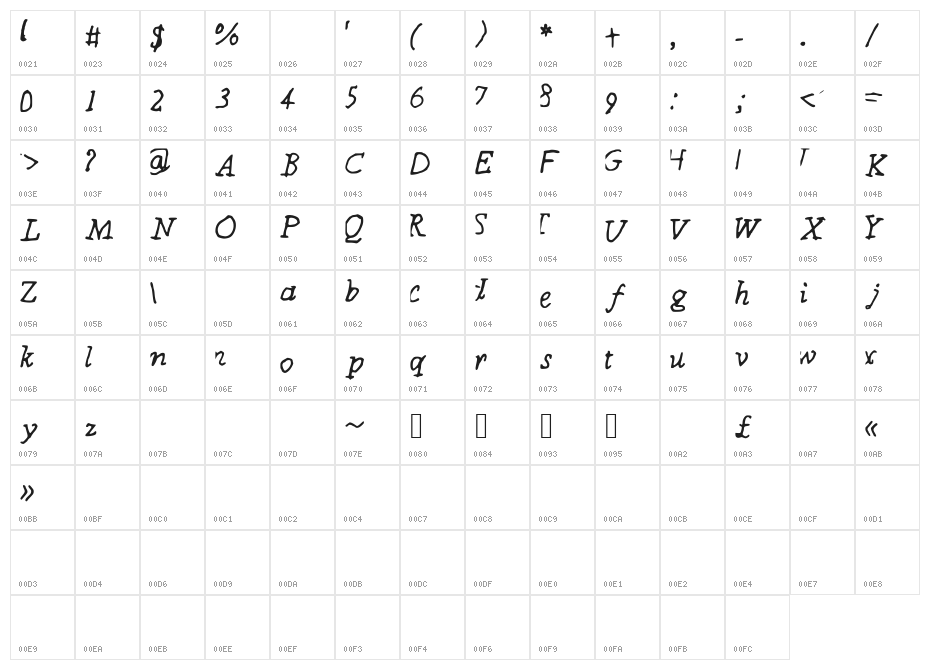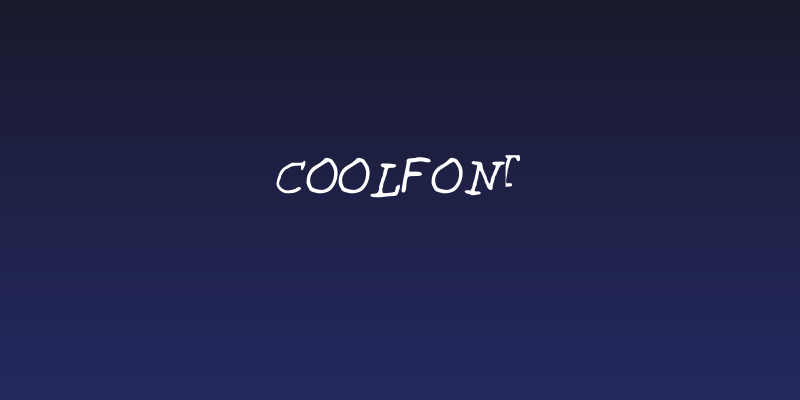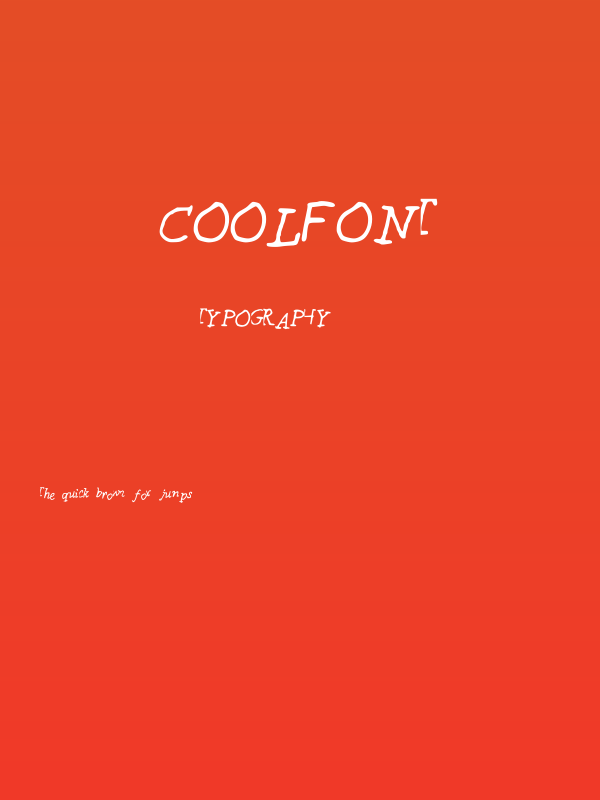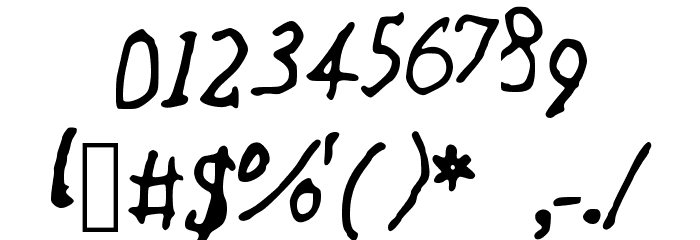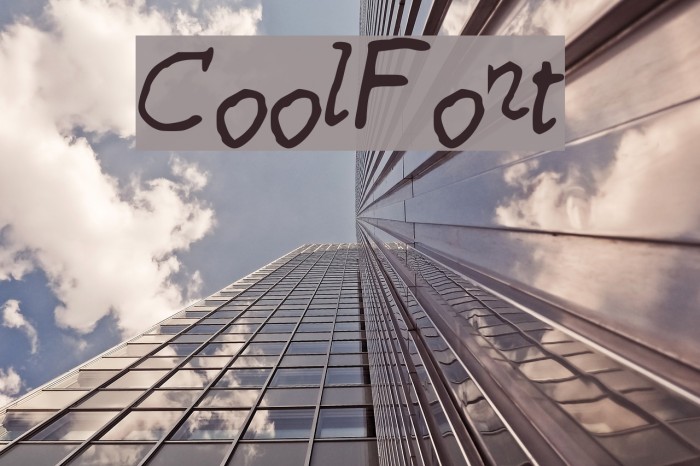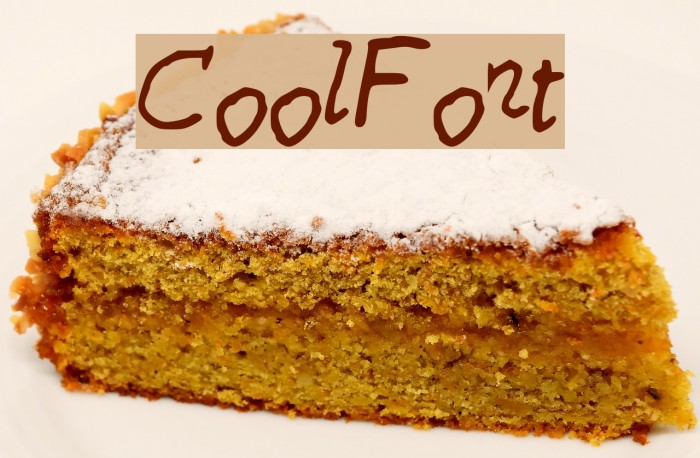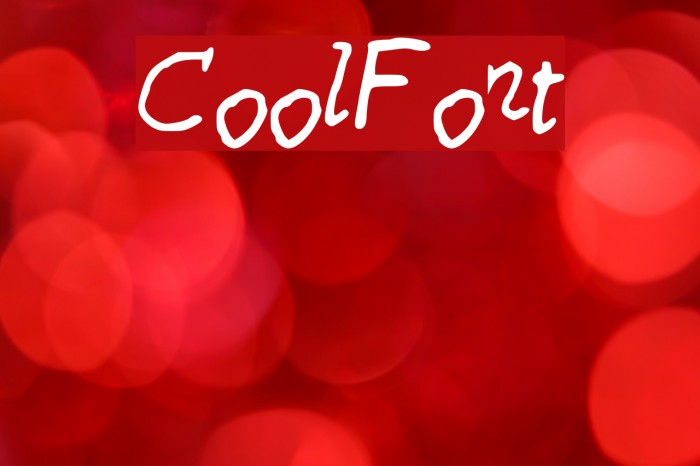
CoolFont Font
CoolFont Description
This font exhibits a playful and dynamic handwritten style, characterized by its irregular and slightly slanted letterforms. The uppercase letters are bold and prominent, with varying stroke widths that add a sense of movement and energy. The lowercase letters maintain a consistent style, with some characters featuring unique flourishes and loops. The numerals are distinct and easy to read, while the special characters complement the overall aesthetic. This font's organic and informal appearance makes it suitable for creative and expressive projects.